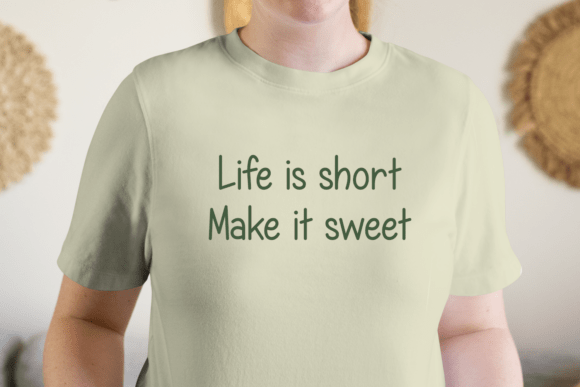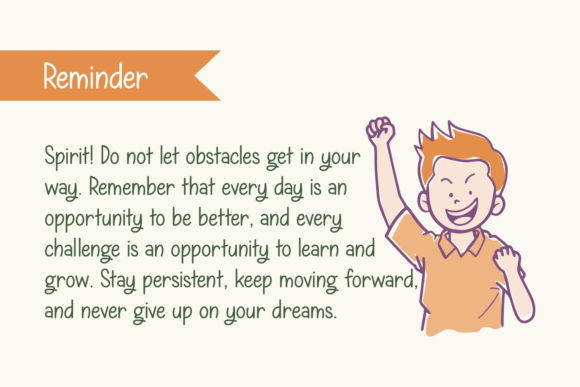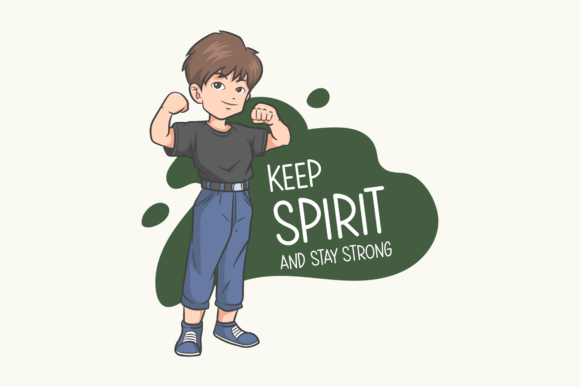
Introduction to Legit Mama Font
Have you ever been stuck on a design project, searching for that perfect font to bring it all together? I know I have. There’s nothing quite like the feeling of seeing your vision come to life, and the right font can make all the difference. Recently, I discovered the Legit Mama Font, and I’m excited to share it with you.
This beautiful handwritten font has quickly become a go-to design resource for me, and I’m sure it will be for you too. With its simple yet elegant feel, Legit Mama Font is perfect for creating logos, branding, invitations, and social media posts that need that special handwritten touch. Its high-quality design and versatility make it an invaluable asset for any creative project.
Key Features of Legit Mama Font
- High-quality design resource ideal for creative projects, such as logos, branding, and digital art.
- Transparent background, allowing for seamless integration with various design elements.
- Legit Mama Font is available in a single weight, perfect for creating a cohesive and stylish design.
- Unique, handcrafted design that adds a touch of personality to any creative project.
Honest Review: Legit Mama Font
I recently stumbled upon the Legit Mama Font, and I must say, it’s a fantastic addition to any designer’s toolkit. As a design enthusiast, I appreciate high-quality fonts that can elevate a creative project.
The Legit Mama Font is a beautiful, modern script font that works exceptionally well for titles, headings, and even body text. Its versatility makes it an excellent choice for various design projects, from branding to digital media.
- High-quality design: The Legit Mama Font is carefully crafted to provide a professional and polished look.
- Transparent background: This feature allows for seamless integration with any background image or color.
- Limited font variations: The Legit Mama Font comes in a single style, which might limit its versatility for designers seeking more options.
- Not ideal for small text: Due to its script nature, the Legit Mama Font might not be the best choice for small text or body content.
Overall, the Legit Mama Font is a solid design resource that can add a touch of elegance to any creative project. While it has some limitations, its high quality and free download make it a worthwhile addition to any designer’s collection.
Tips for Getting the Most Out of the Legit Mama Font
Use the Legit Mama Font in conjunction with a transparent background for a unique and creative look. Experiment with different font sizes and styles to add visual interest to your design. Consider using the font in combination with other high-quality design resources to create a cohesive and professional-looking design.
The Legit Mama Font is a versatile design resource that can be used in a variety of creative projects, including social media graphics, blog posts, and business cards. Its high-quality design makes it perfect for use in a range of industries, from fashion to food to finance. Whether you’re a professional designer or a DIY enthusiast, the Legit Mama Font is a great addition to your design toolkit.